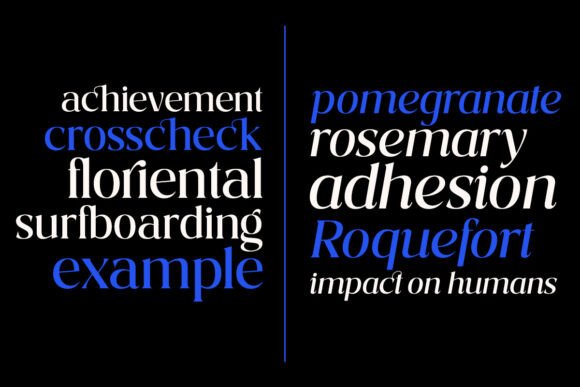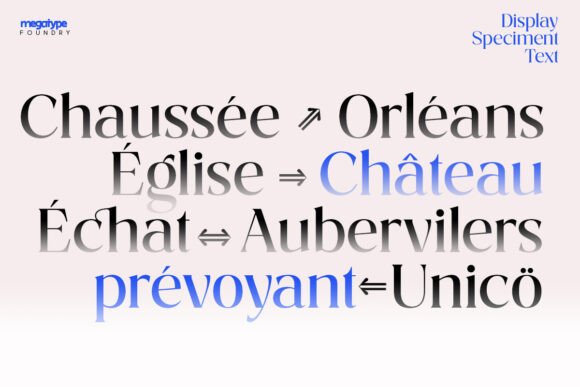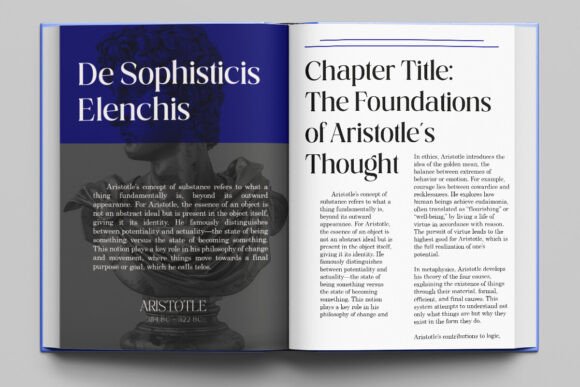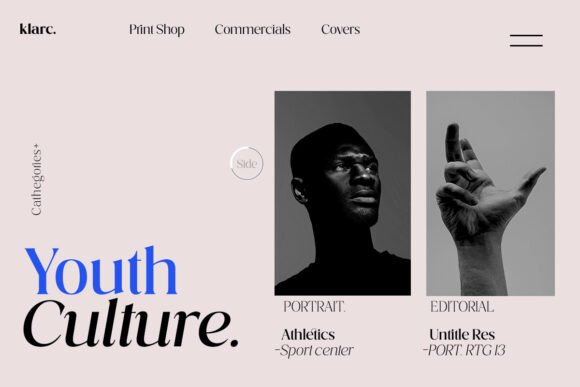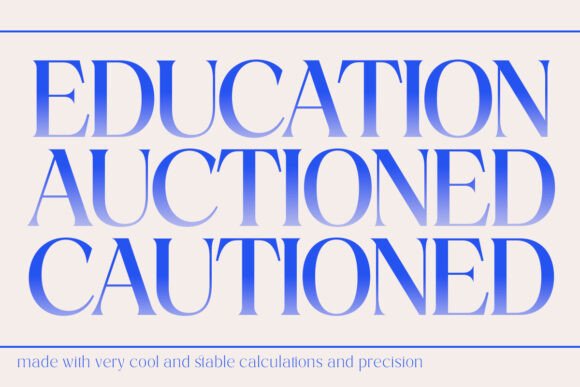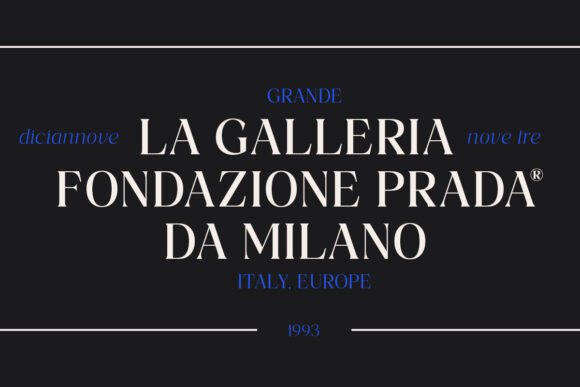
Introducing Costaline Semi Bold Font: Elevate Your Designs with Classic Elegance
In the world of typography, a font can make or break a design. For designers and crafters seeking a harmonious and stylish contemporary serif typeface with a classic feel, look no further than Costaline Semi Bold. This versatile font is designed to help you create stunning visuals with ease, boasting a range of features that make it perfect for various design projects.
A Harmonious and Stylish Typeface
Costaline Semi Bold is a masterfully crafted font that exudes elegance and sophistication. Its classic feel is reminiscent of traditional serif typefaces, while its contemporary twist ensures it remains fresh and modern. The font’s harmonious design makes it easy to read, even in large blocks of text, making it an excellent choice for editorial design, magazine titles, and long-form content.
Variety and Flexibility
One of the standout features of Costaline Semi Bold is its range of styles, including vertical and italic options. This allows designers to explore and refine their designs with ease, revealing many visual nuances and hidden secrets. Whether you’re working on a branding project, logo design, or packaging, Costaline Semi Bold provides the flexibility you need to create something truly special.
Perfect for a Range of Design Projects
Costaline Semi Bold is a perfect choice for a wide range of design projects, including:
- Editorial design: Create stunning magazine titles, articles, and features with ease.
- Headlines: Make a bold statement with Costaline Semi Bold’s eye-catching design.
- Branding projects: Establish your brand’s identity with a font that’s both classic and modern.
- Logo design: Create a lasting impression with a custom logo designed using Costaline Semi Bold.
- Packaging: Elevate your product packaging with a font that’s both stylish and easy to read.
- Advertisements: Grab attention with Costaline Semi Bold’s bold and eye-catching design.
- Web design: Create a stunning website with a font that’s optimized for digital use.
Why Choose Costaline Semi Bold?
So why choose Costaline Semi Bold for your design projects? Here are just a few reasons:
- Classic feel: Costaline Semi Bold boasts a classic feel that’s perfect for designs that require a touch of elegance.
- Contemporary twist: The font’s modern design ensures it remains fresh and relevant.
- Versatility: With vertical and italic options, Costaline Semi Bold provides the flexibility you need to create something truly special.
- Easy to read: The font’s harmonious design makes it easy to read, even in large blocks of text.
Tips for Using Costaline Semi Bold
To get the most out of Costaline Semi Bold, here are a few tips:
- Experiment with different styles: Try out different styles, such as vertical and italic, to add visual interest to your design.
- Use it for headlines and titles: Costaline Semi Bold is perfect for headlines and titles, where its bold design can really make an impact.
- Pair it with other fonts: Don’t be afraid to pair Costaline Semi Bold with other fonts to create a unique and interesting design.
In conclusion, Costaline Semi Bold is a versatile and stylish font that’s perfect for designers and crafters seeking a classic yet modern typeface. With its range of styles, ease of use, and flexibility, it’s an excellent choice for a wide range of design projects. Whether you’re working on editorial design, branding projects, or web design, Costaline Semi Bold is sure to elevate your designs and help you create something truly special.